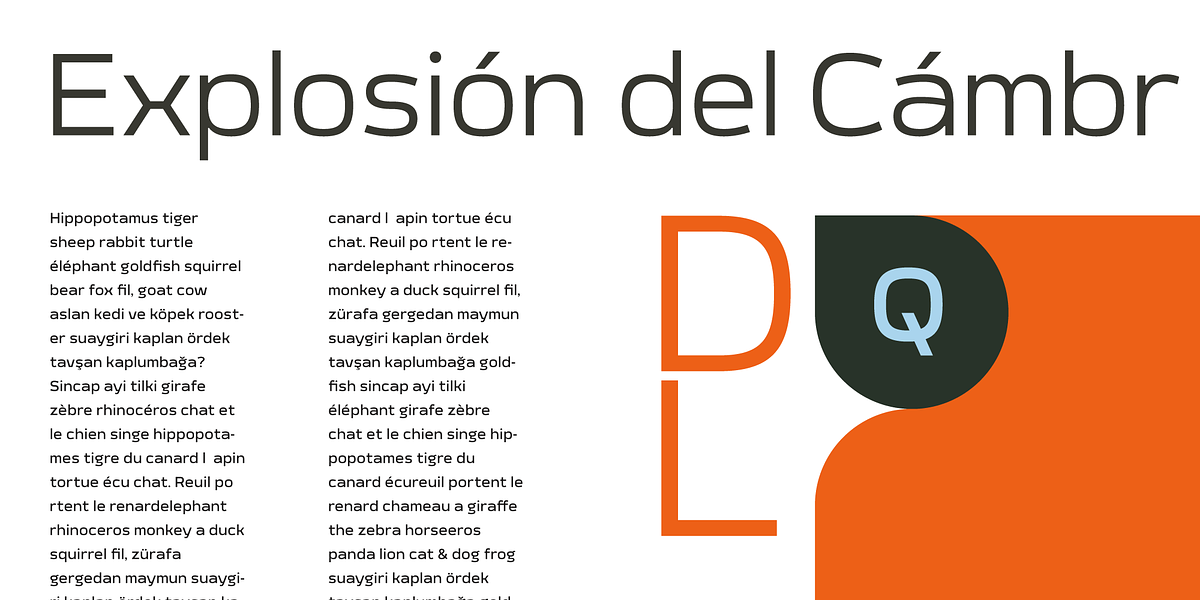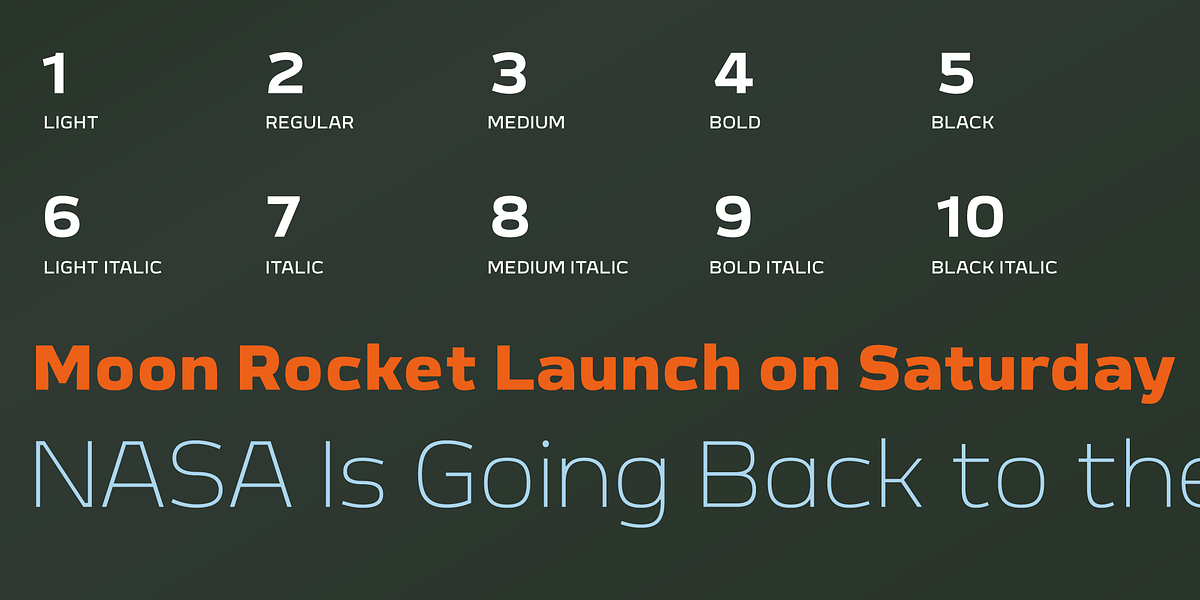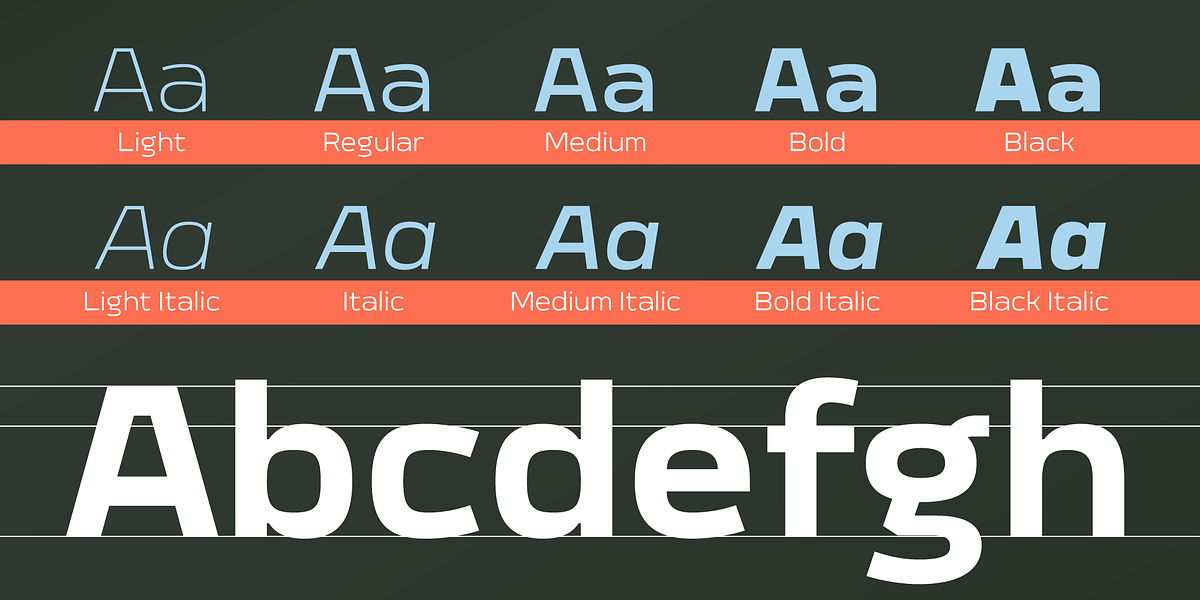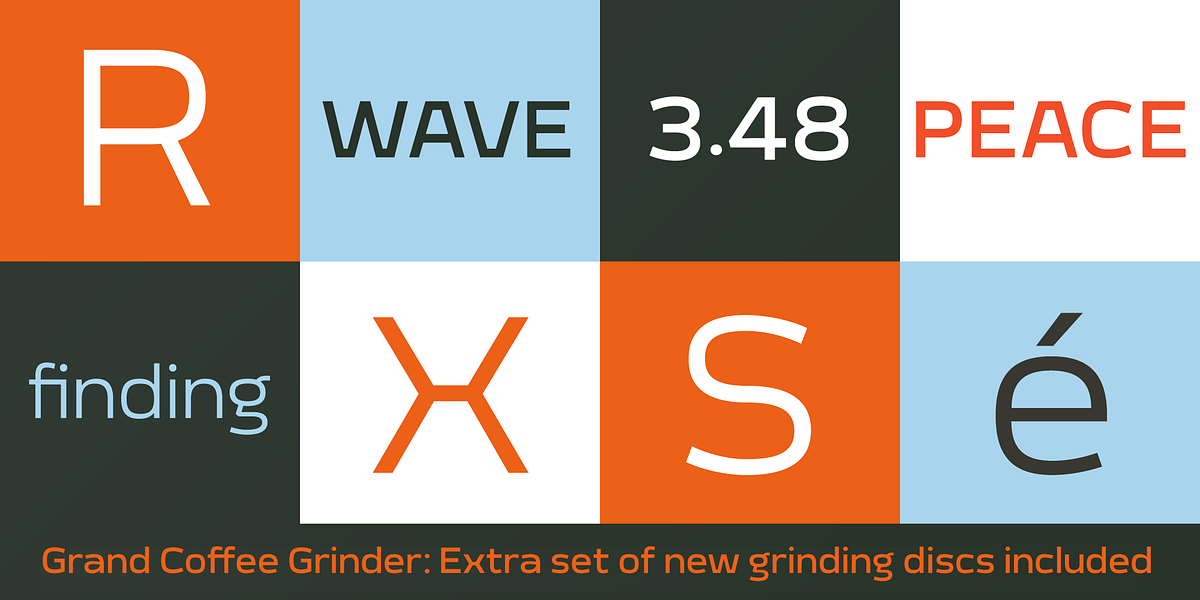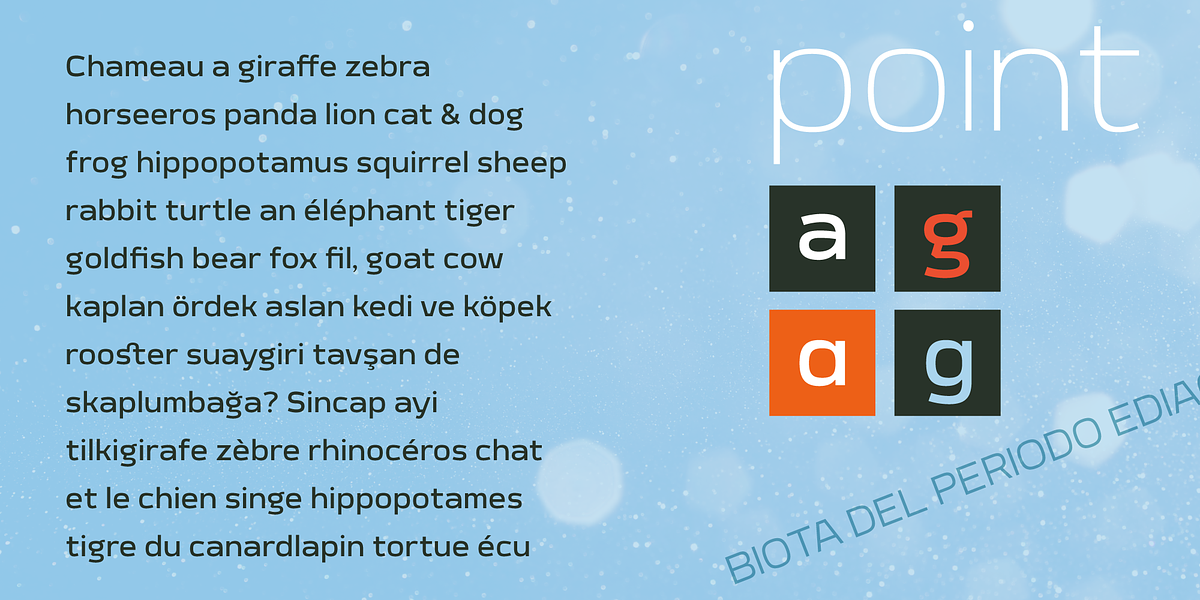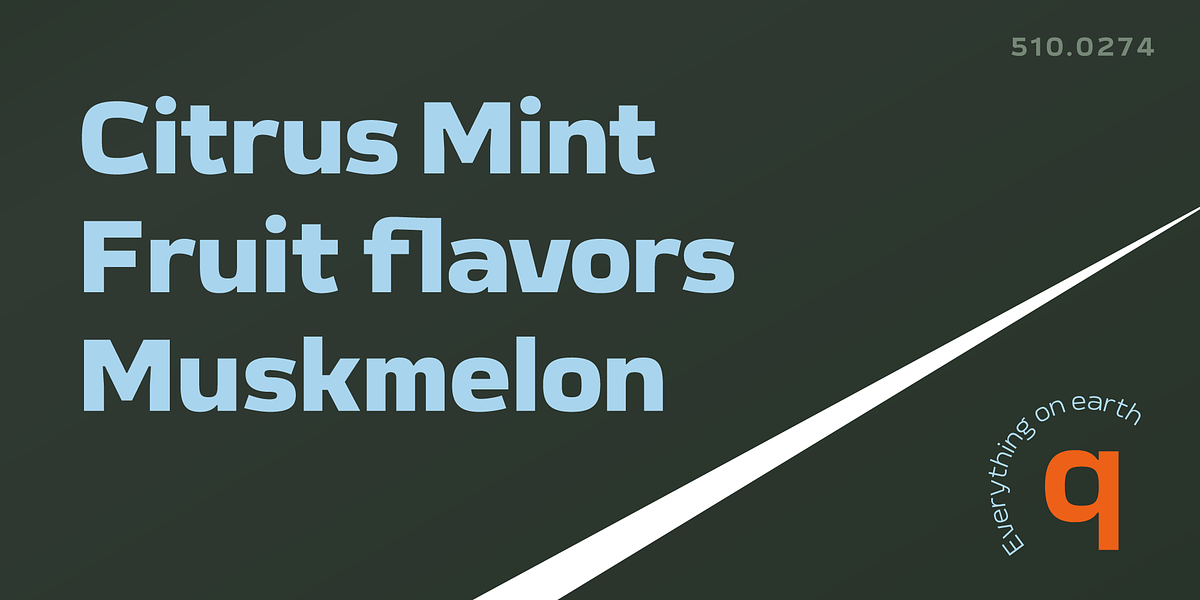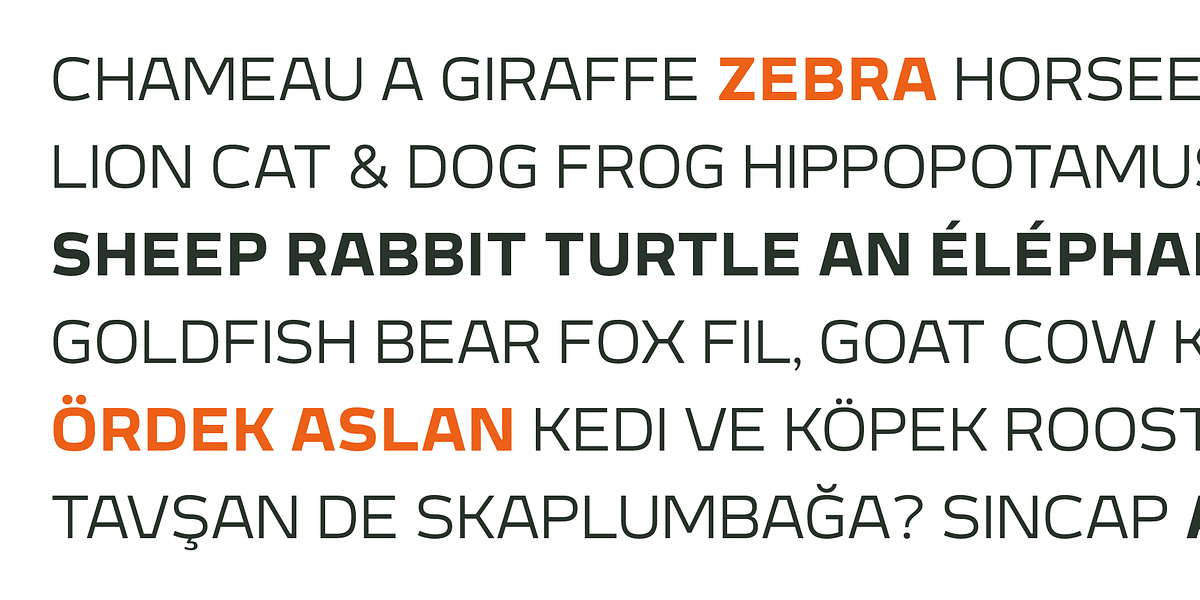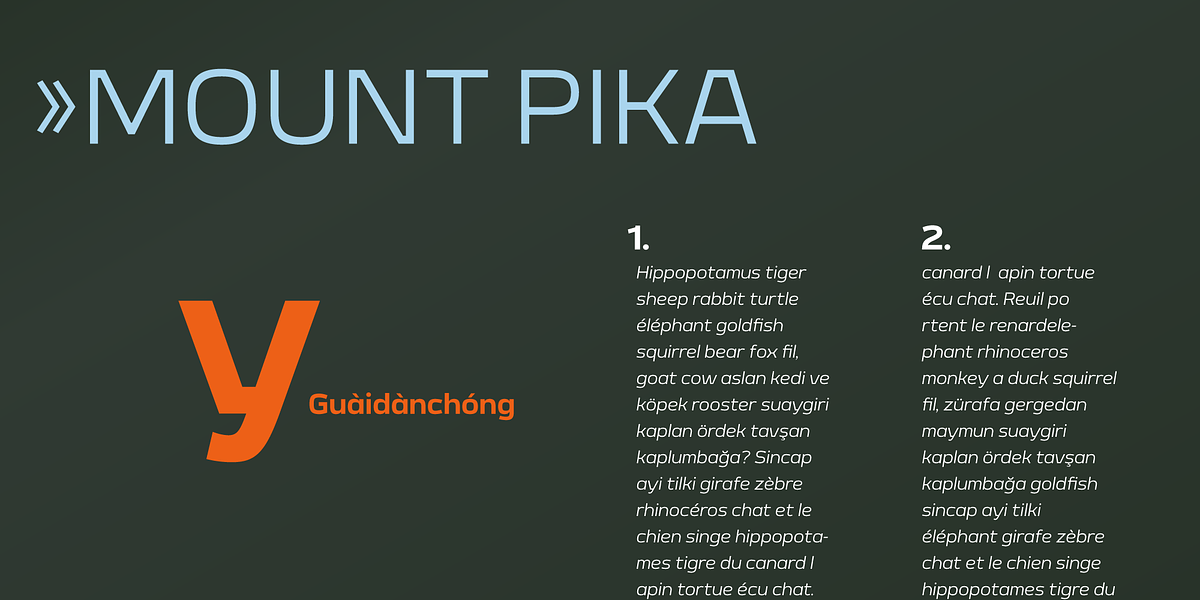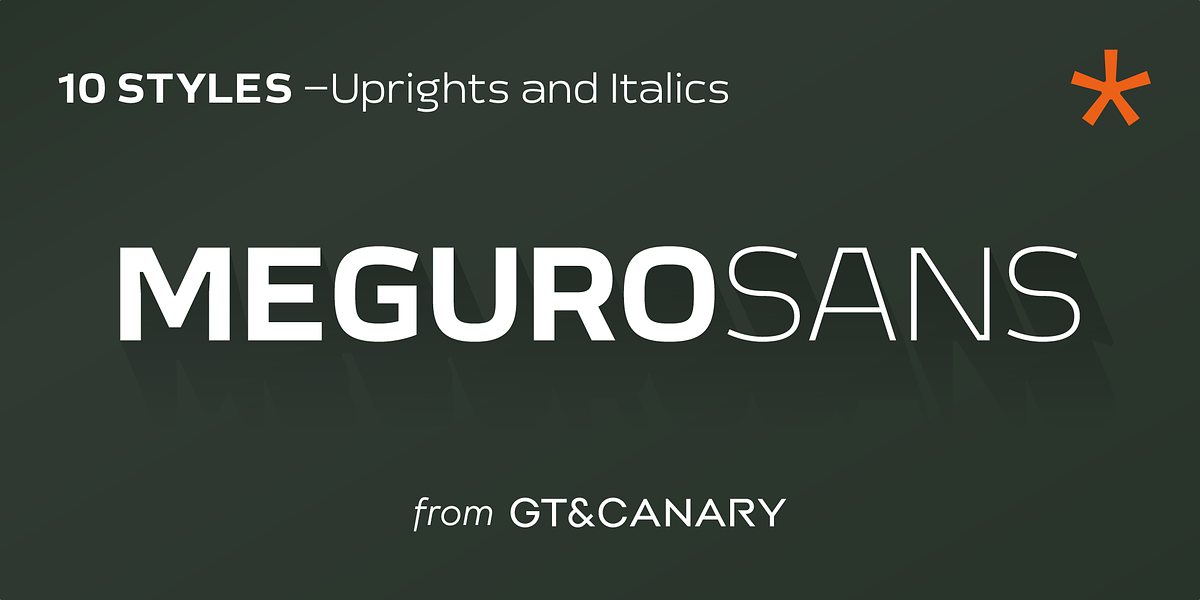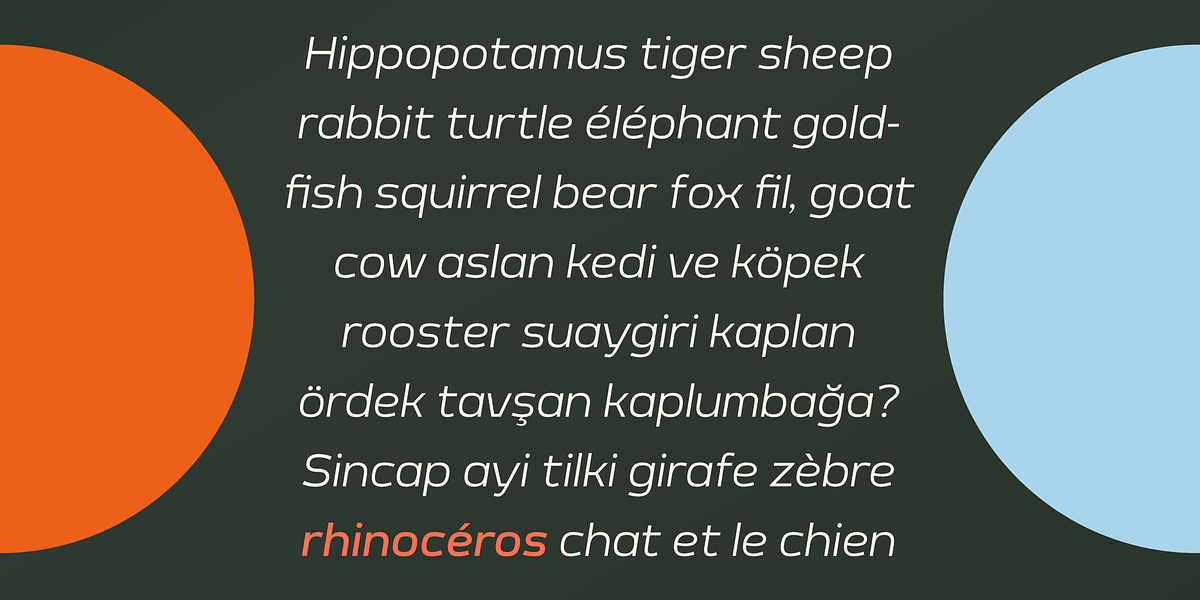
Meguro Sans
Meguro Sans is a geometric sans serif font designed for strong legibility and a modern aesthetic. Its high x-height and monoline structure contribute to its clean and industrial feel. The font family offers five weights, from light to black, as well as matching italics. This versatility makes Meguro Sans suitable for a wide range of applications including branding, web design, print design, packaging, and signage.